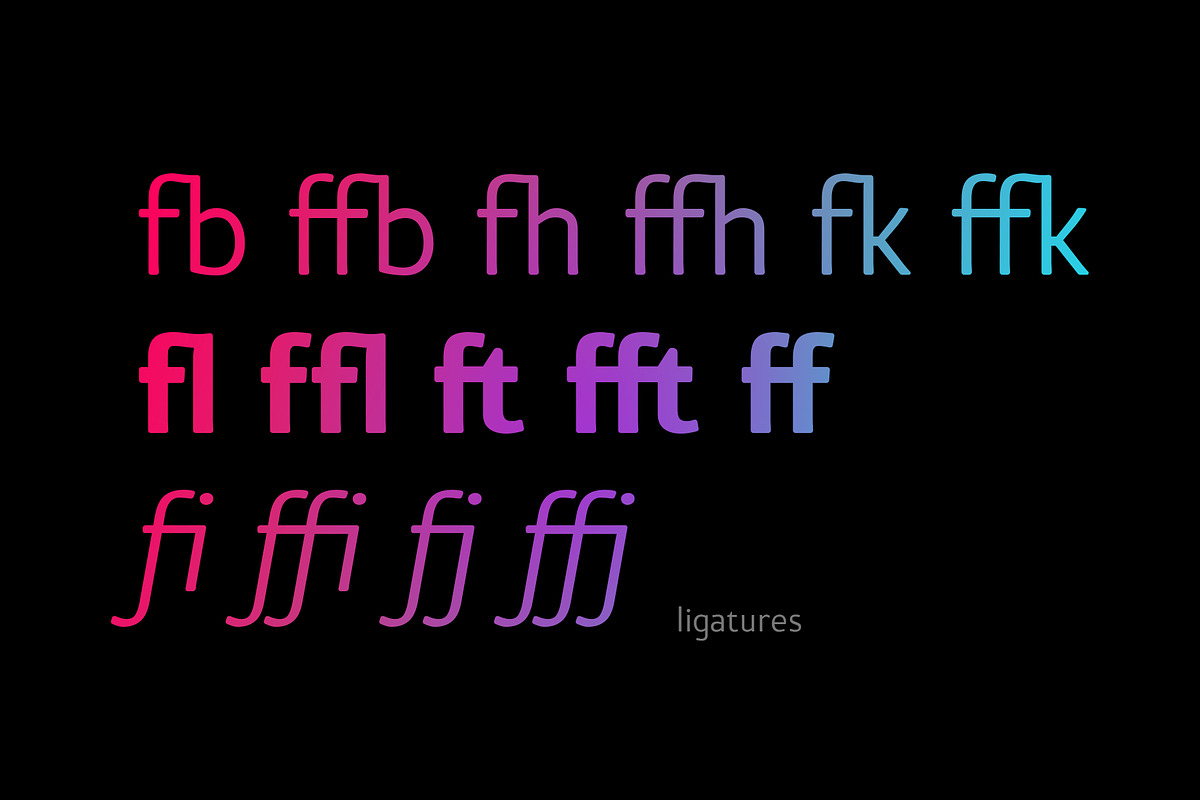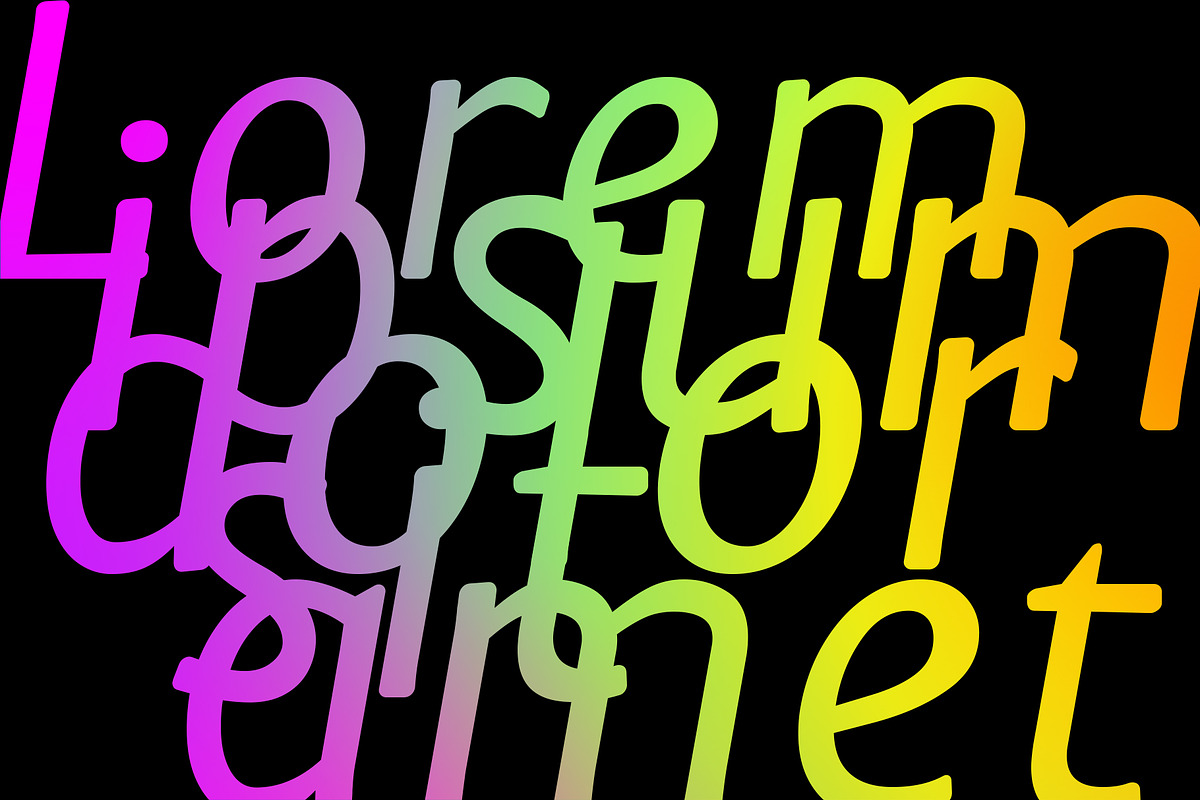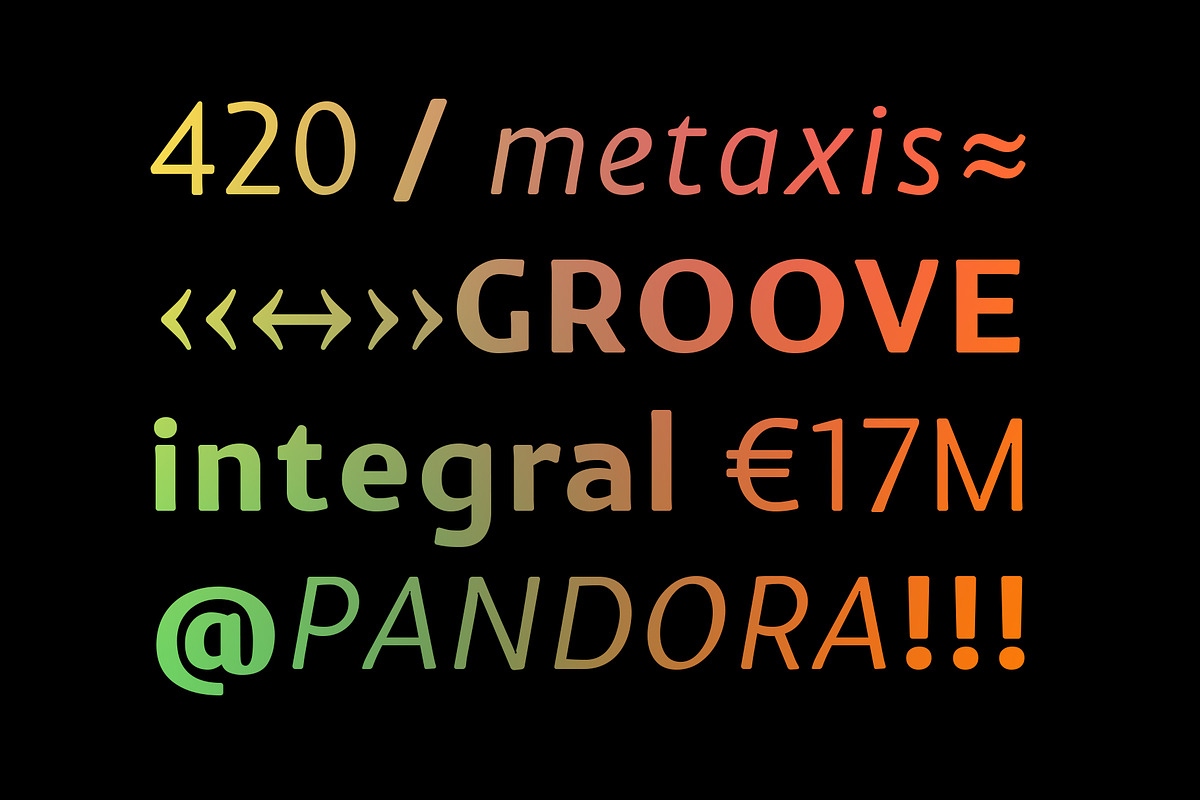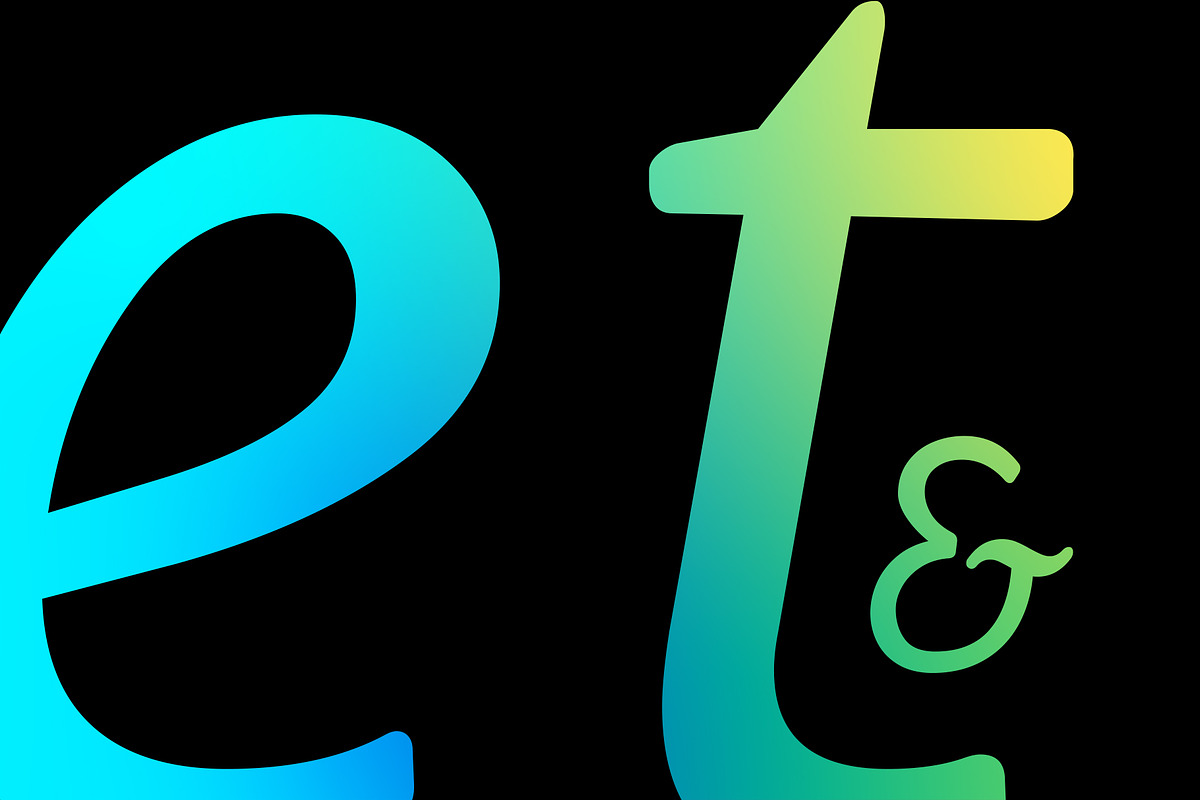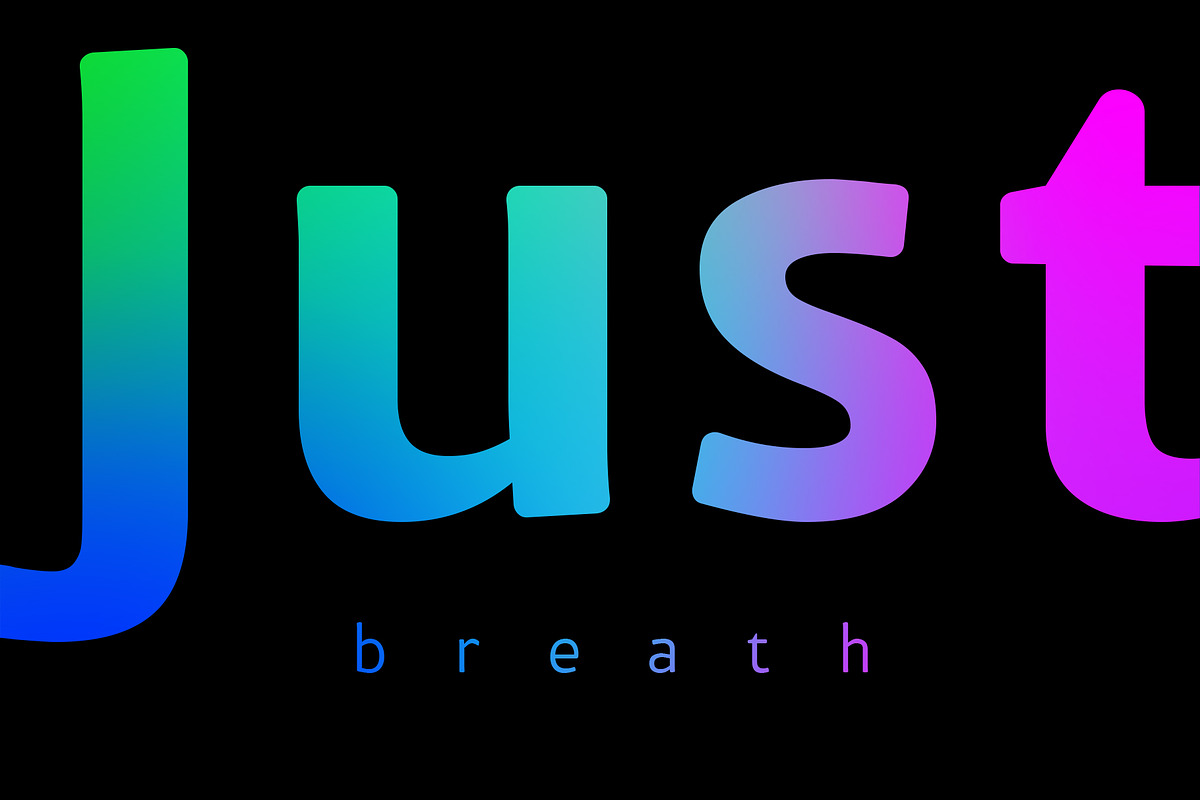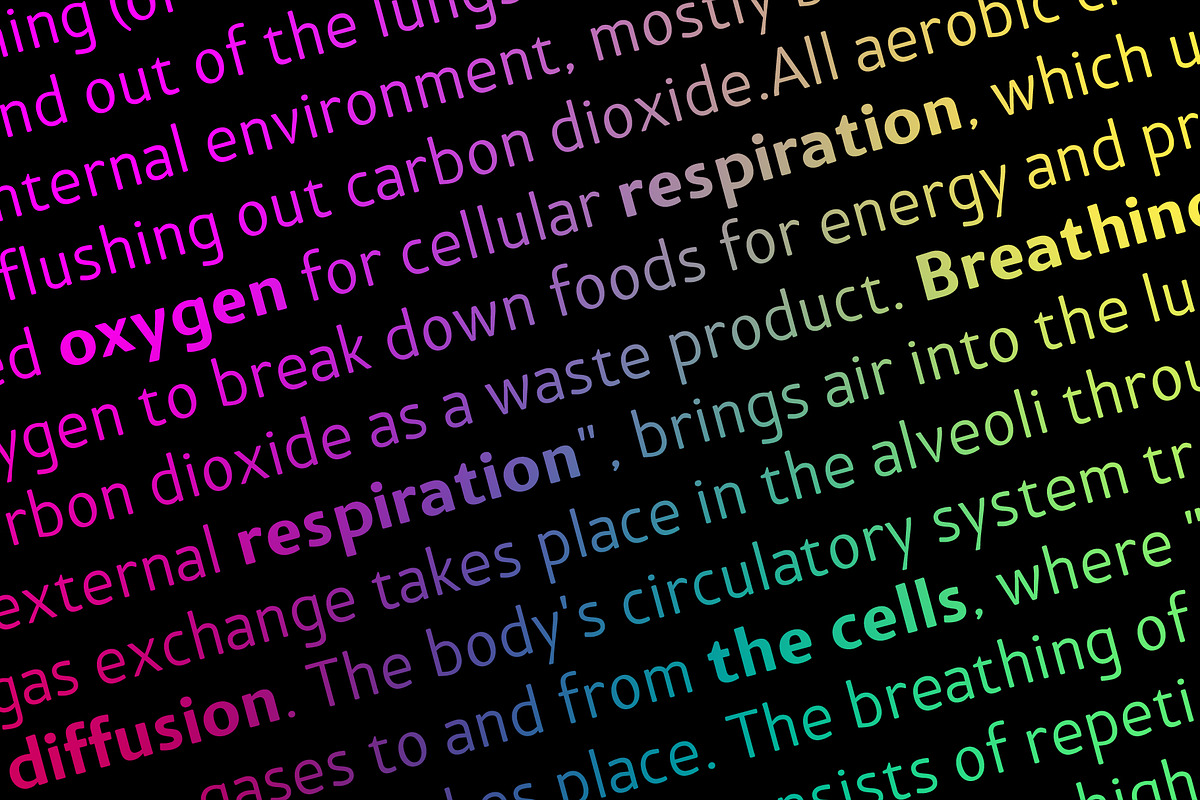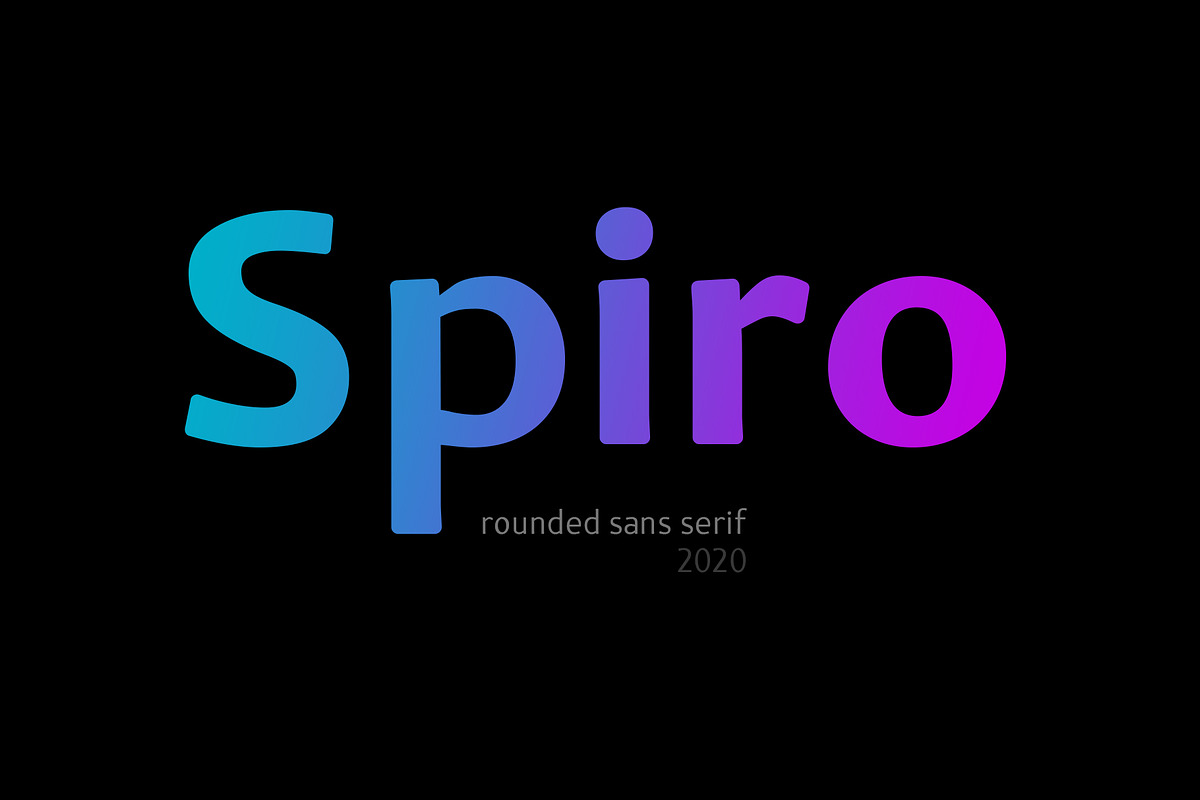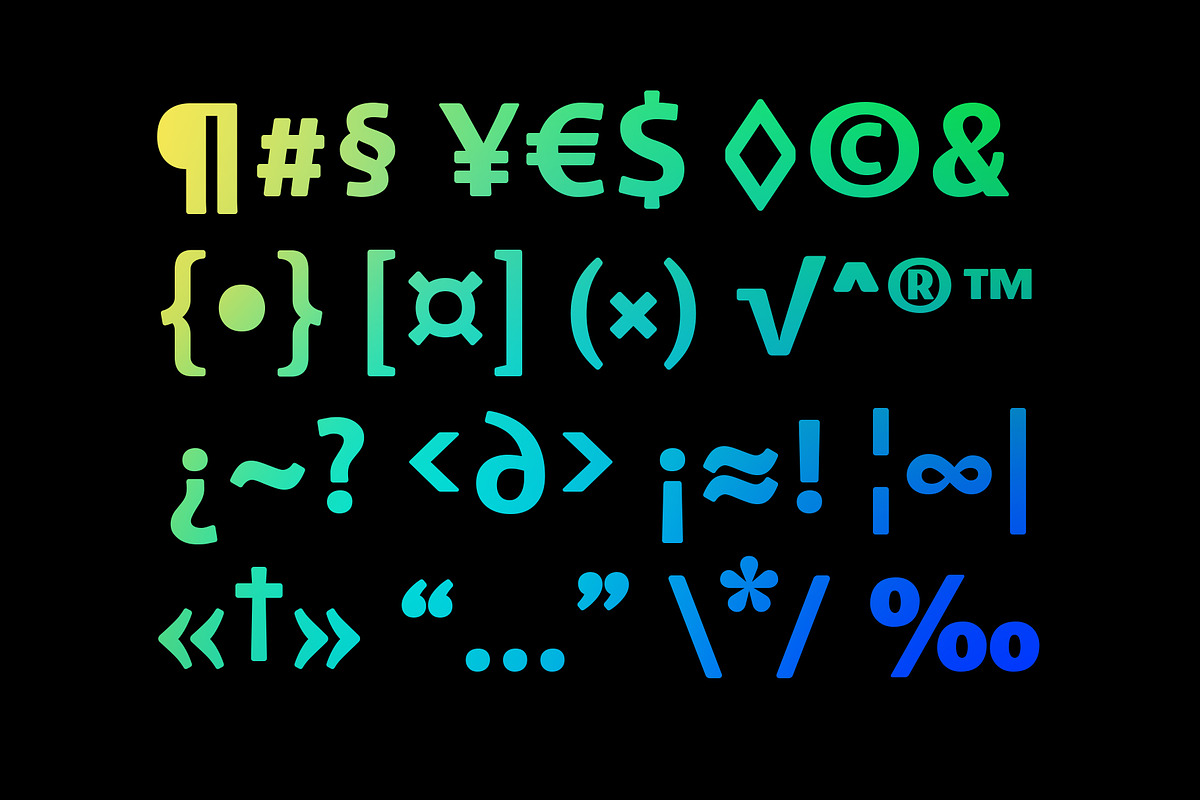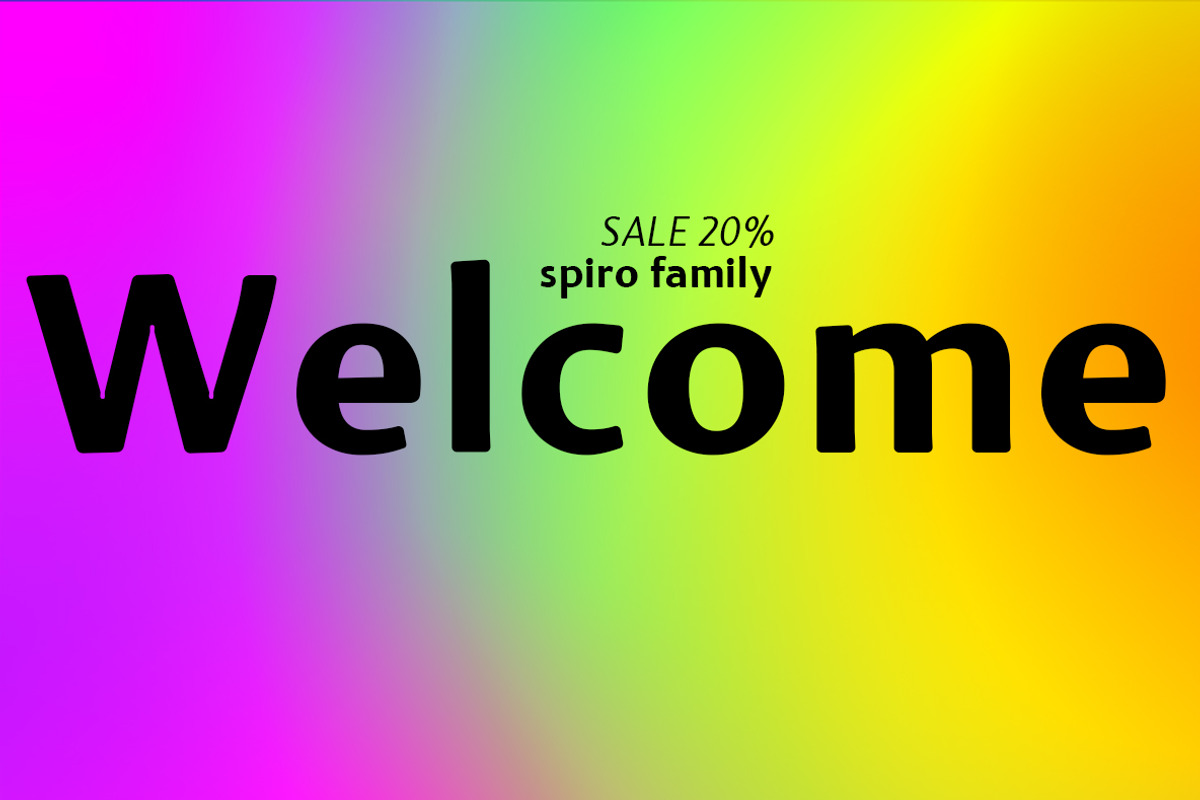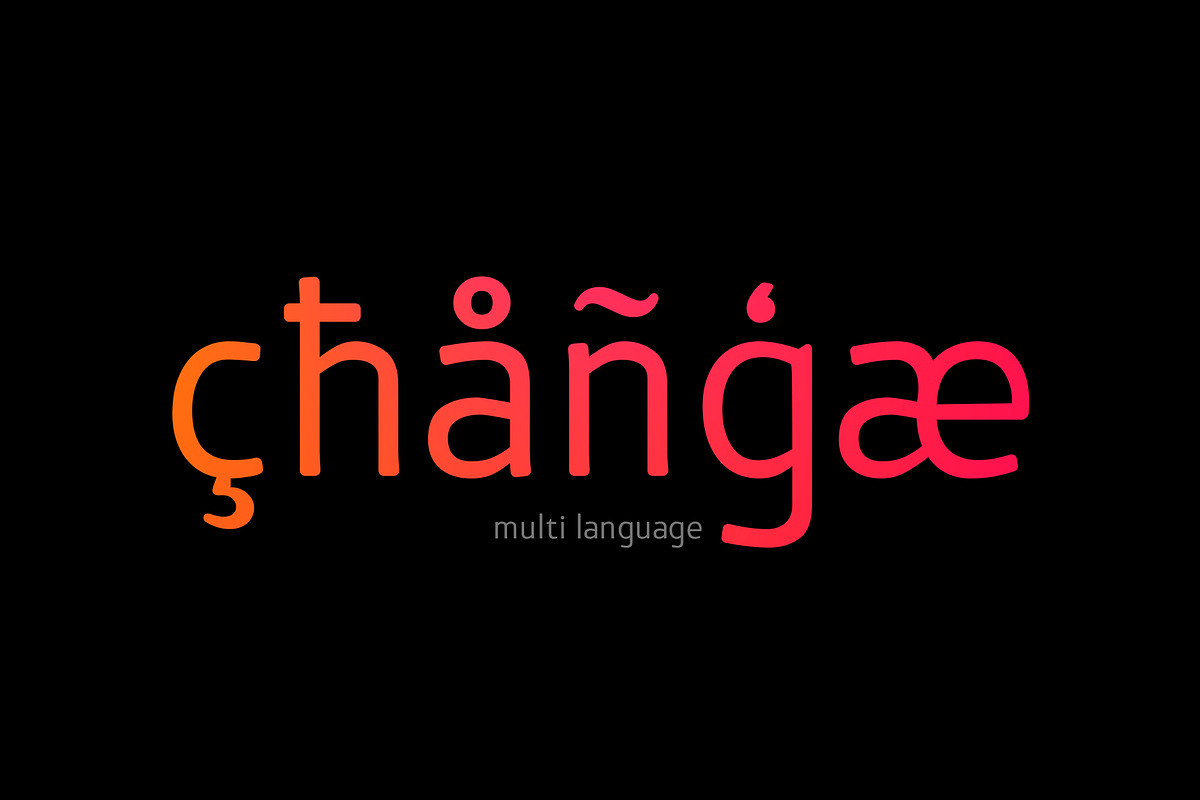
Introducing rounded sans serif SPIRO. The family includes 3 styles: regular, bold and italic. Spiro supports multi language symbols as æ, ß, ç, etc. It also has all necessary ligatures and extra glyphs you may need. To use them you have to open glyphs panel in menu Window. The font is compatible on both Windows and Mac. You can use it in all popular apps like Adobe, Corel Draw, Microsoft, Final Cut etc.